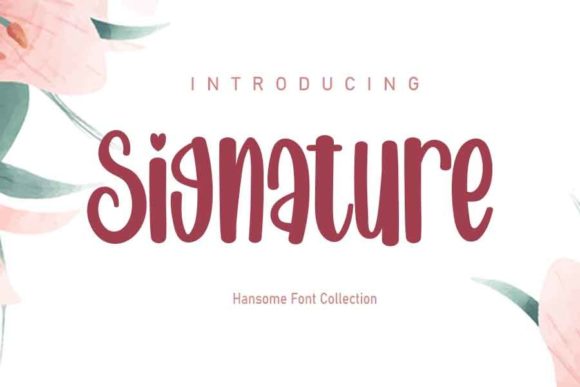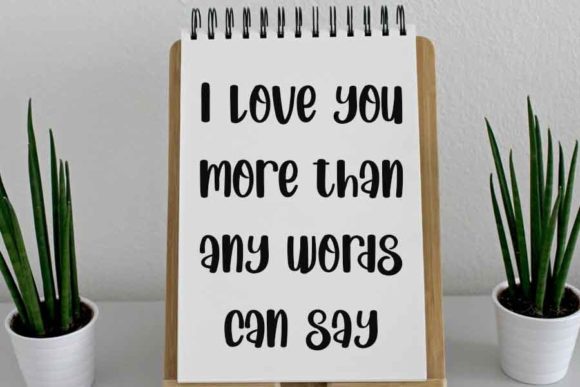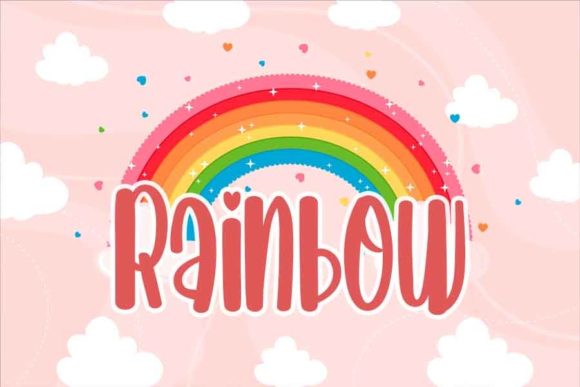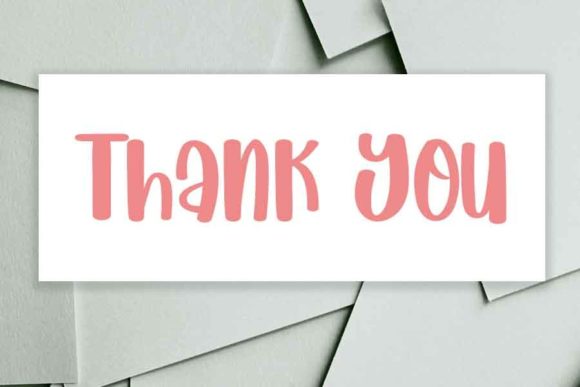
Signature is a chic, friendly and casual handwritten font. This font was particularly crafted for those who need a beautiful and refreshing look to their designs.